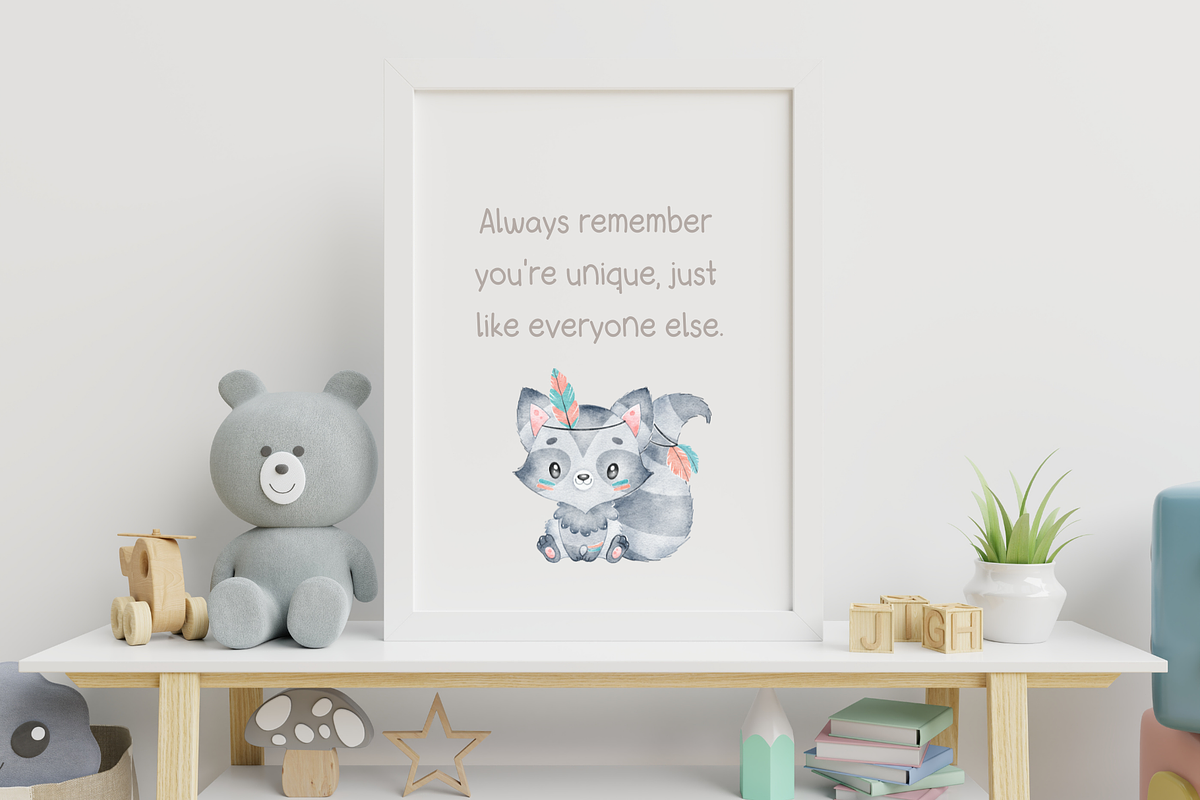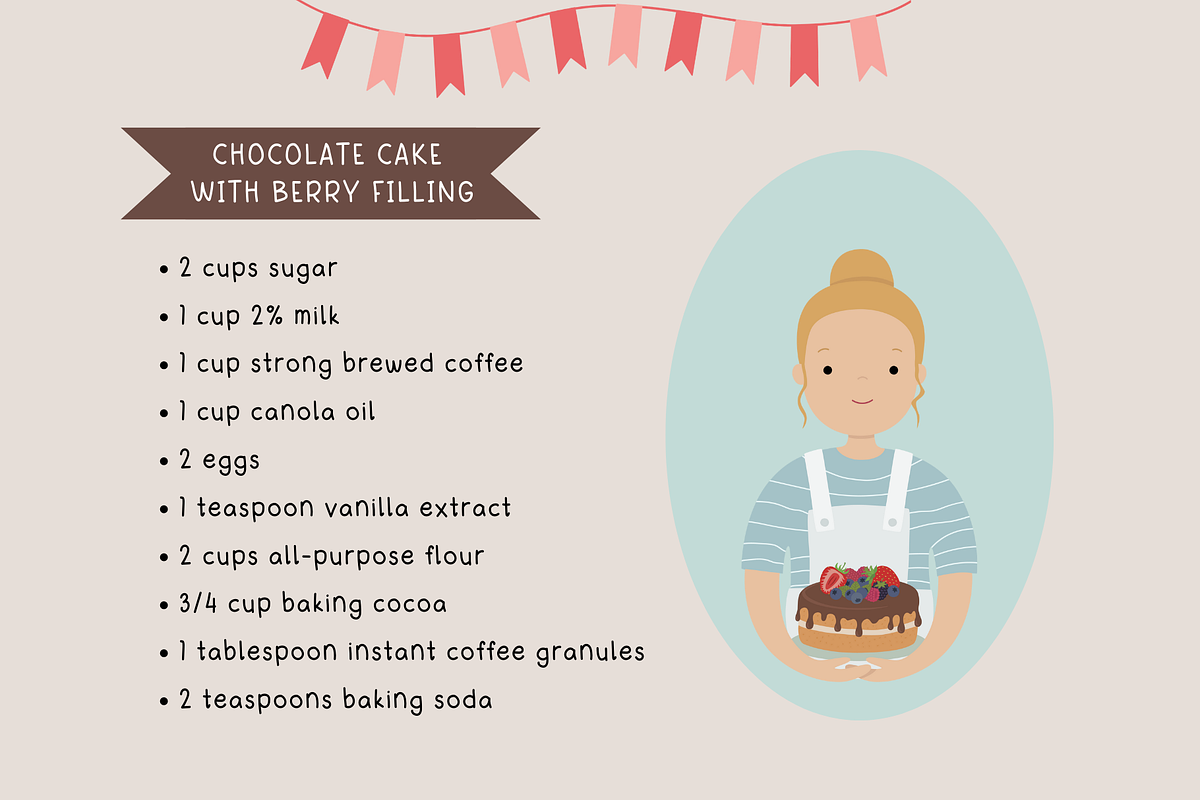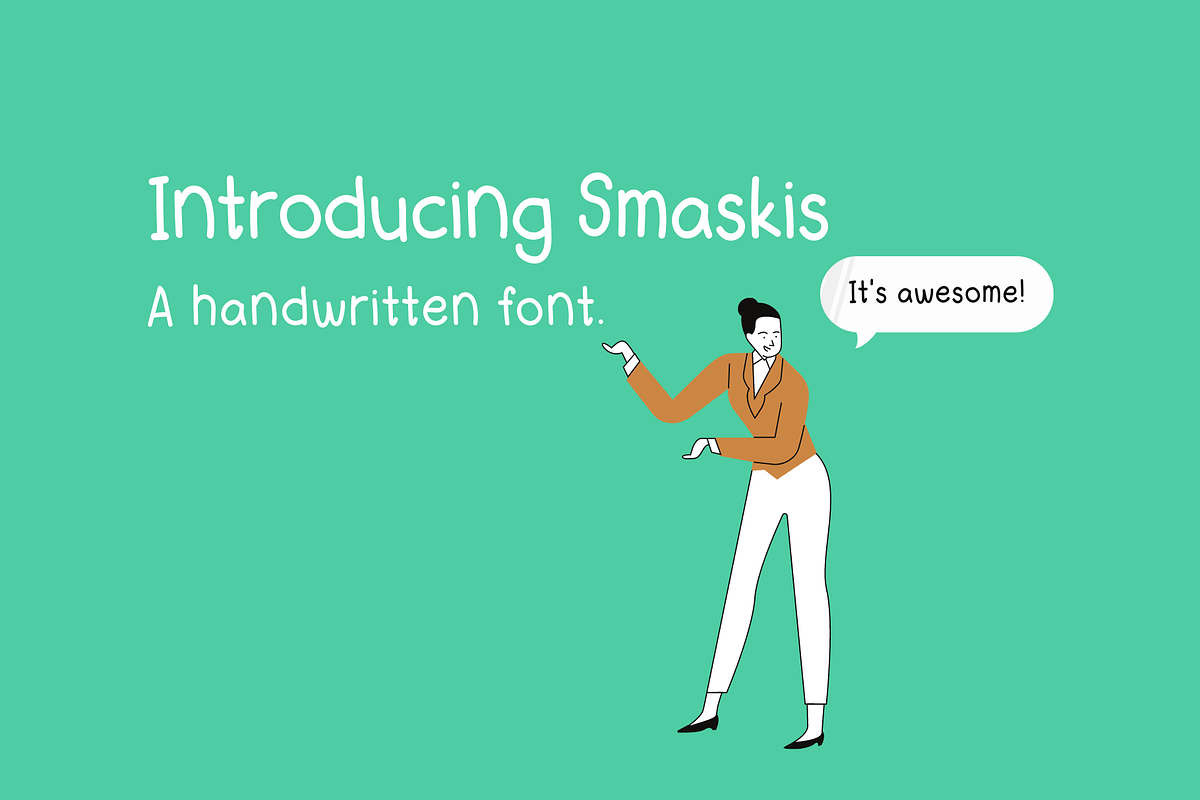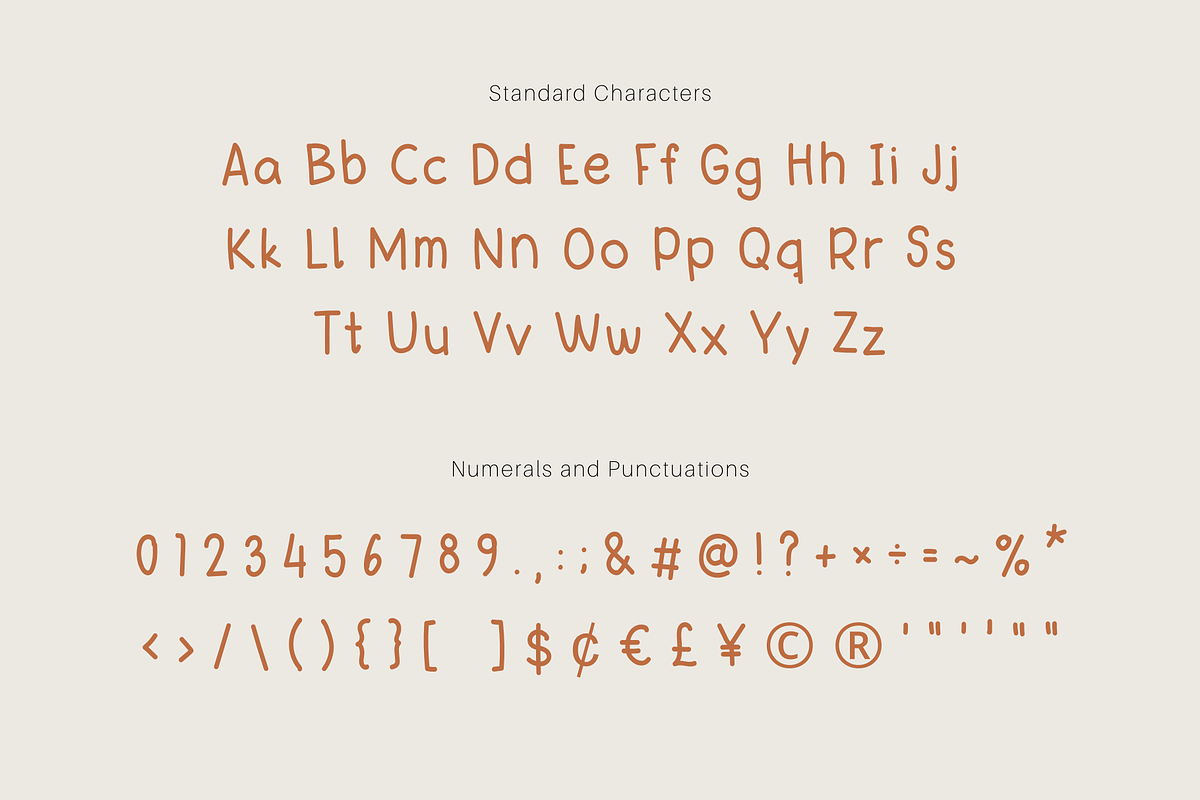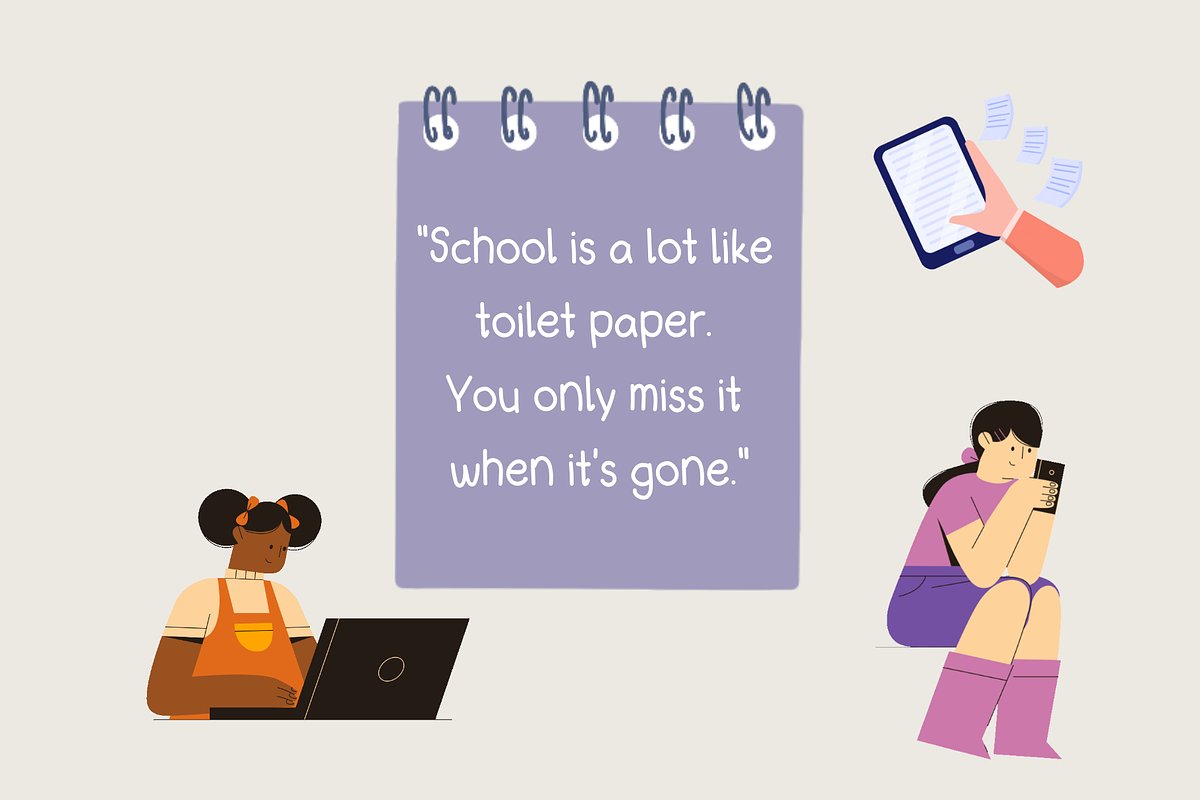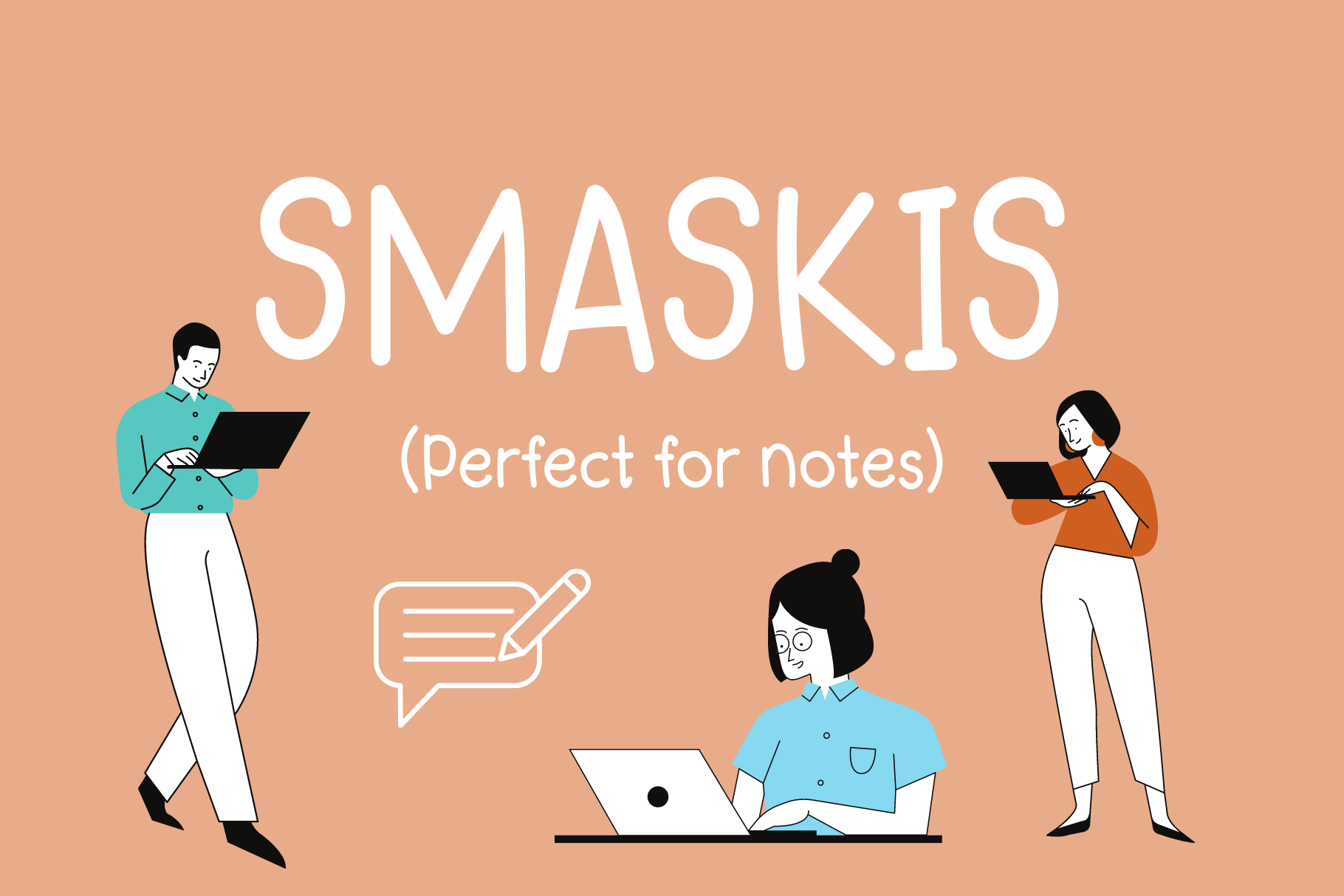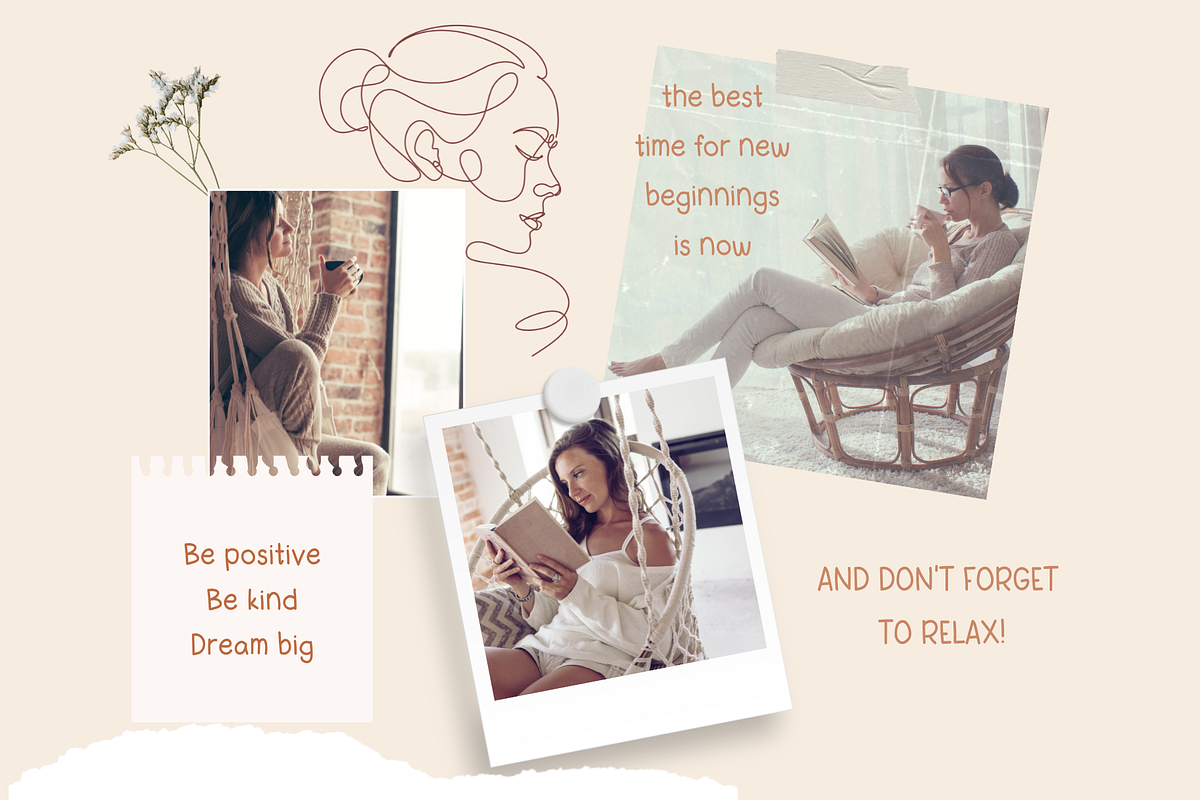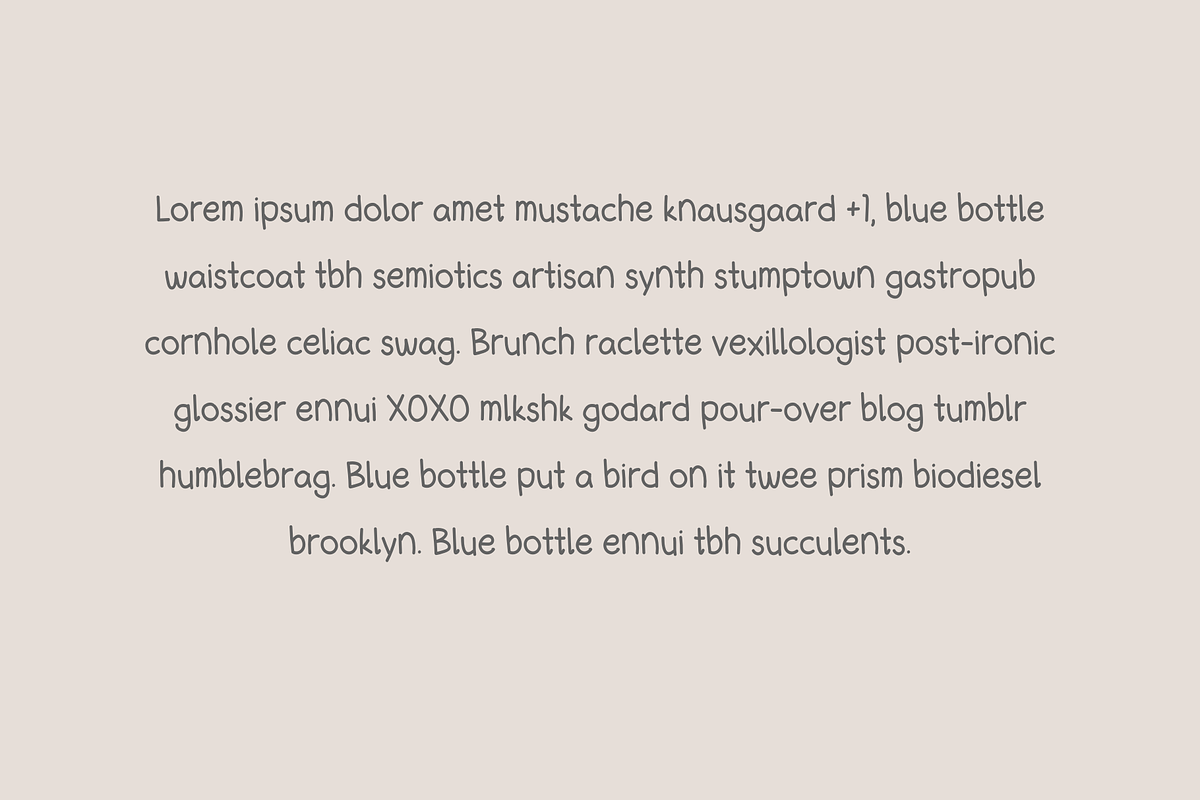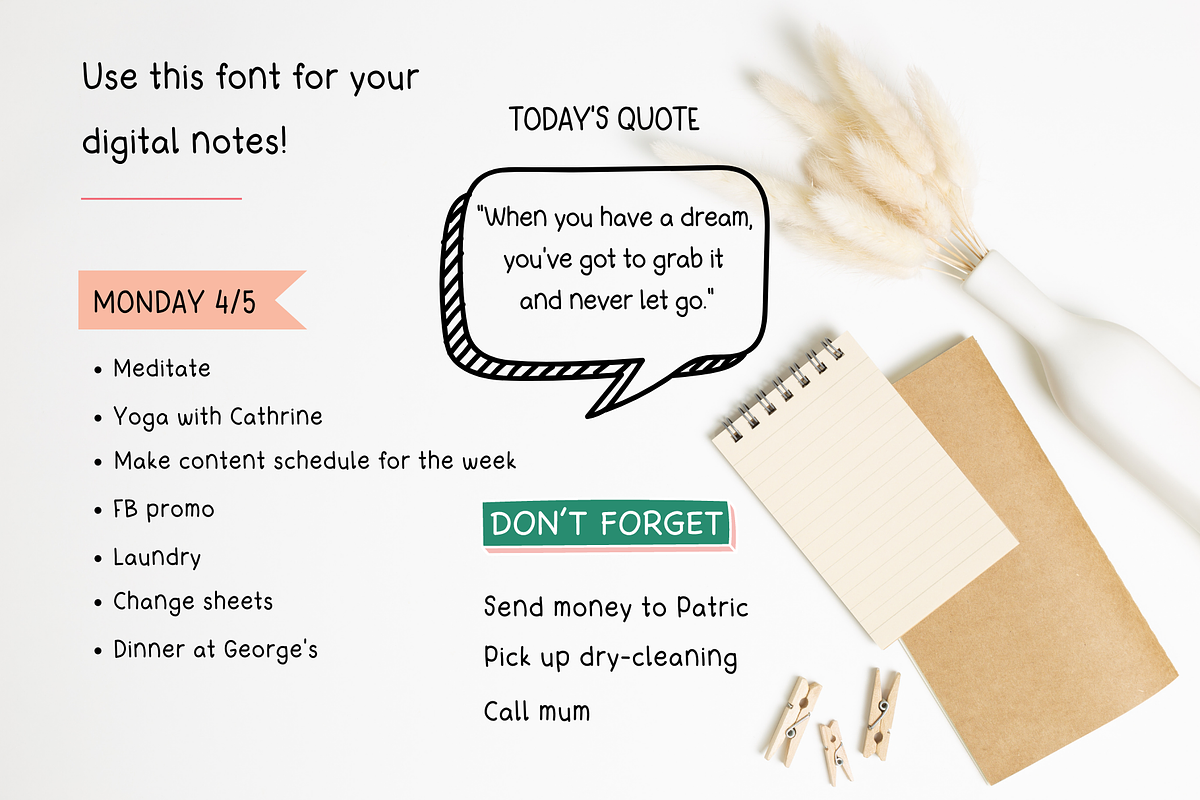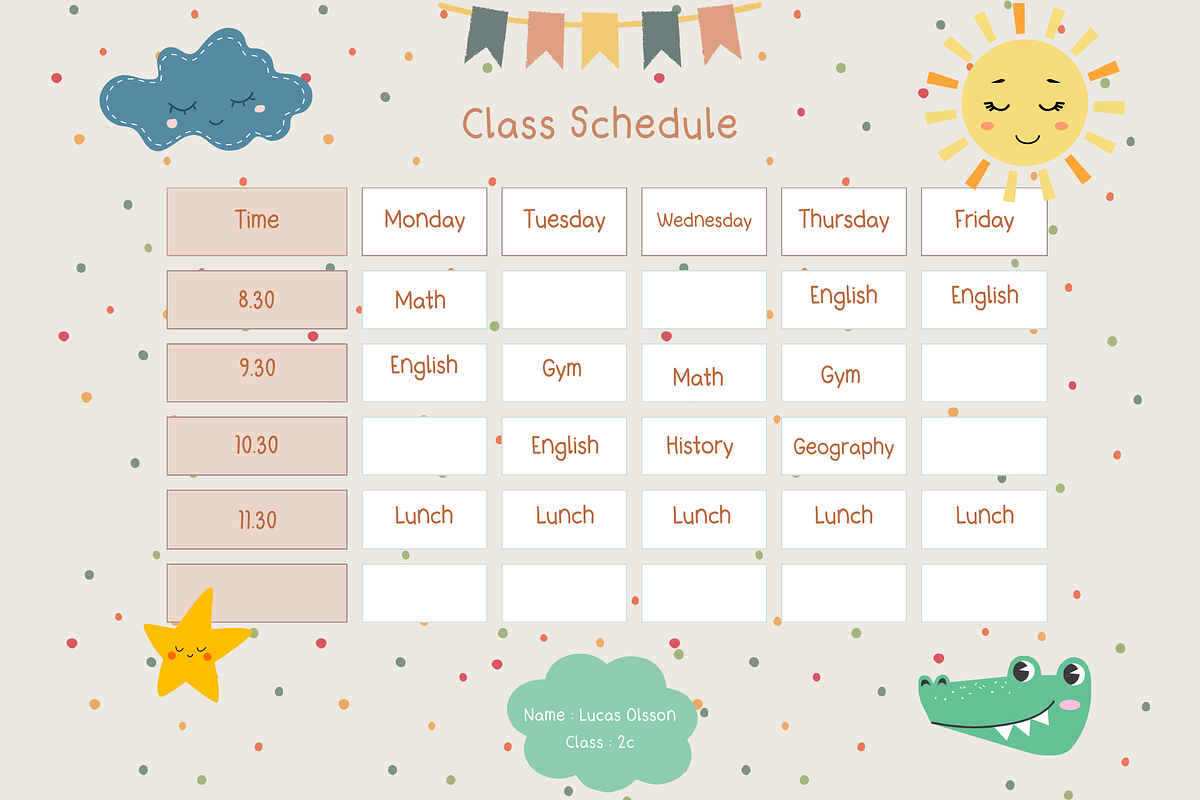
Smaskis Digital Notes Font
Smaskis is a cute and handwritten font. Suitable for journaling, digital notes, scrapbooking, invitations, branding, write on blogs, instagram, cards, social media, stickers, blog posts, and much more!